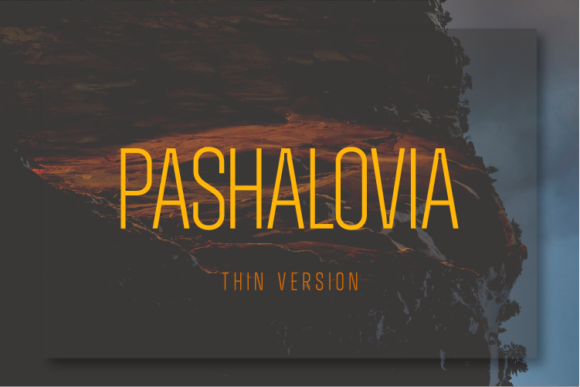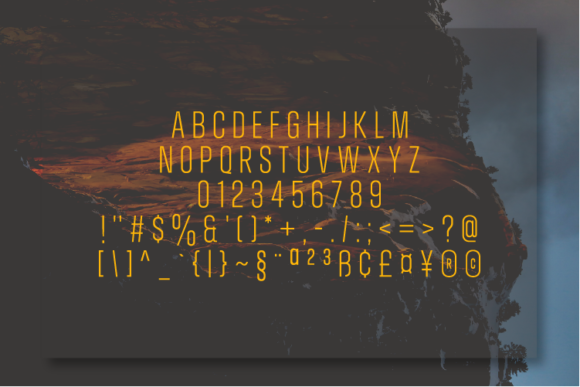
HomeSans Serif FontsPashalovia Thin Font Sans Serif Fonts Pashalovia Thin Font FacebookXPinterestWhatsApp Pashalovia Thin Font 1 of 2 About Pashalovia Thin Font Pashalovia is a versatile sans serif with minimum contrast strokes, closed apertures and geometric shapes as characters. This typeface will deliver any message with style, clarity and legibility. DOWNLOAD ON CREATIVE FABRICAThis font is sold and delivered by Creative Fabrica. Font Canyon may earn a commission if you buy through this link. People also explored Sunshine in the Sky Font Creative Handmade Font Kylies Font Omalia Font YWFT Enam Mantara Mega Font Farmhouse Planner Font Harmony Vintage Font Medina Font 287 0 TagsPashalovia Thin Font Previous articlePashalovia Extra Light FontNext articleSpotlight Extra Black Font LEAVE A REPLY Cancel reply Comment: Please enter your comment! Name:* Please enter your name here Email:* You have entered an incorrect email address! Please enter your email address here Website: Save my name, email, and website in this browser for the next time I comment. Personal Use Free Rothwell Personal Use Free Read more about this font Kinda Sweet Personal Use Free Read more about this font Ailand Personal Use Free Read more about this font Sui Genesis Personal Use Free Read more about this font BLOG Free Fonts Risk: Why Free Fonts Can Be Dangerous for Designers Free Fonts Risk: Why Free Fonts Can Be Dangerous for Designers Using free fonts is a common practice in web and graphic design. However, the... How to Cut Any Font on Cricut: Convert a Font to SVG (Free) Exploring Font Trends Best Fonts for YouTube Videos: Make Your Thumbnails Stand Out